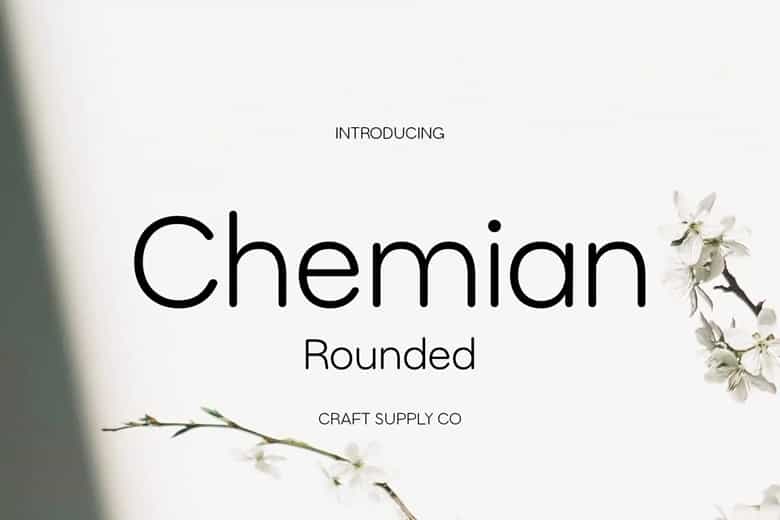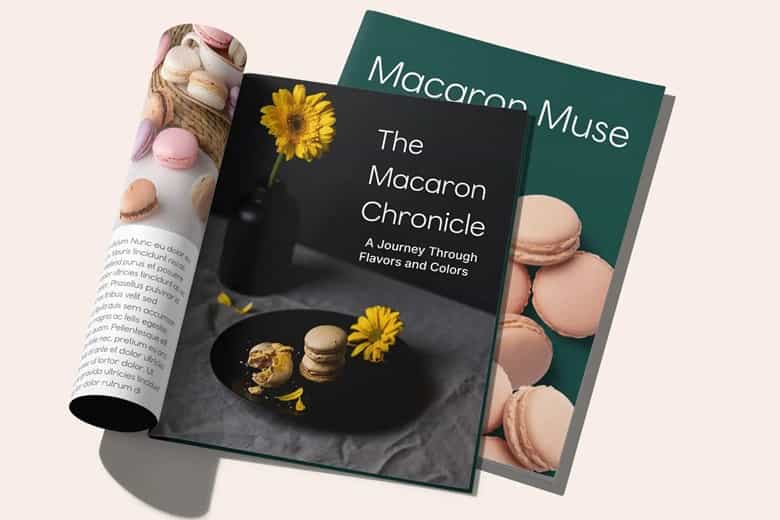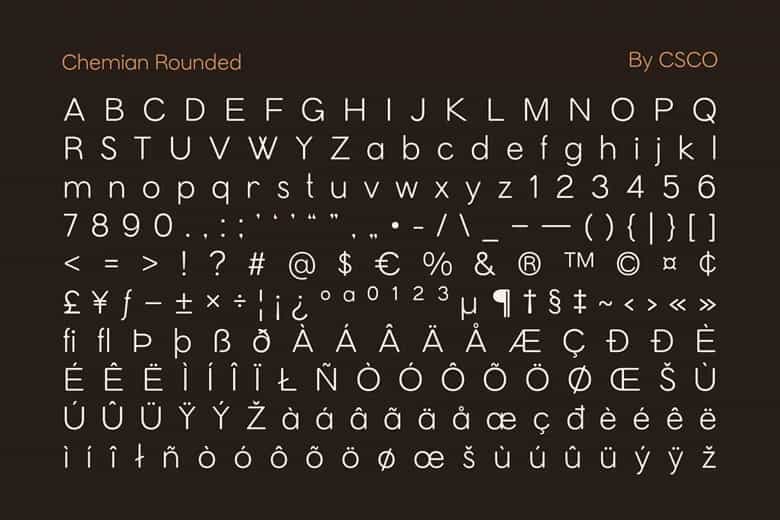
Chemian Rounded is a new sans serif typeface that entails clean geometric forms with smooth round corners and edges.. The font is quite minimalistic and therefore looks very professional, yet warm and inviting at the same time which works great.